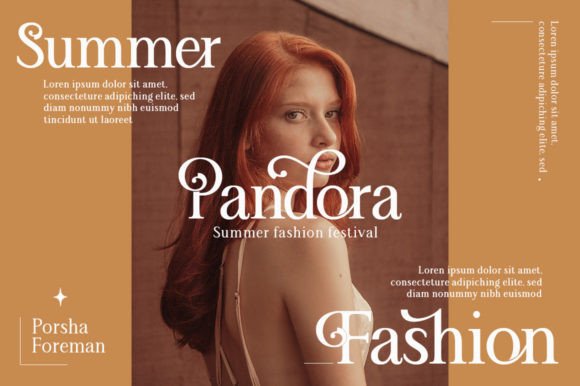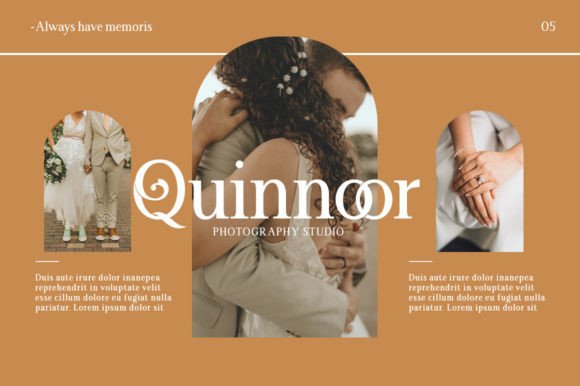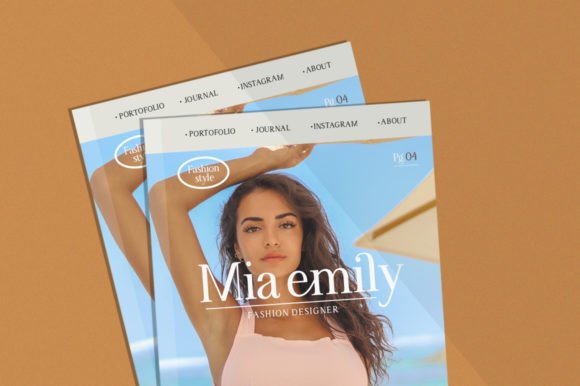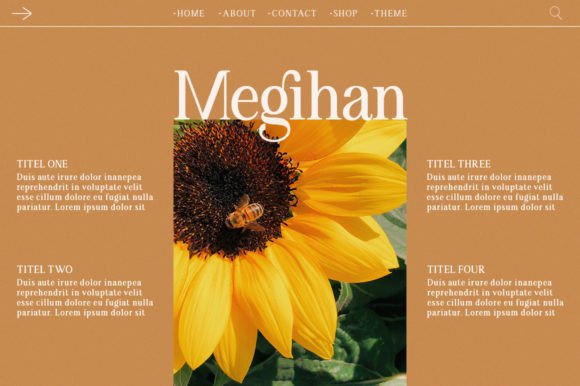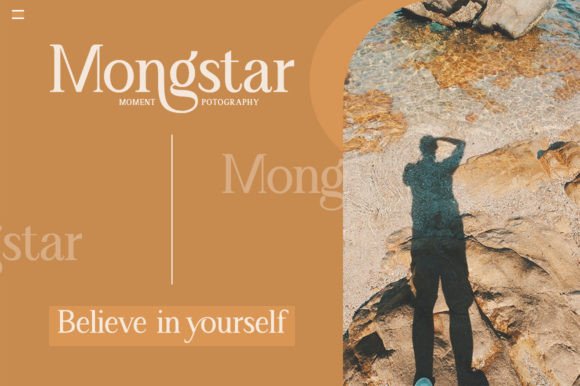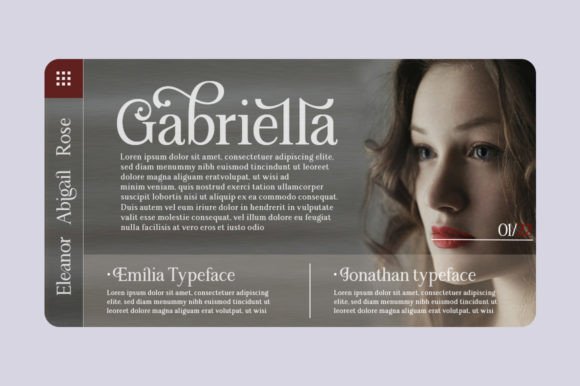
Introduction to Angilena Font
Have you ever stared at a blank page, waiting for the perfect font to strike inspiration? It’s that moment of creative blockage when the right design resource can make all the difference. For designers seeking a unique twist to elevate their work, the Angilena Font is a game-changer. This elegant serif font seamlessly connects letters with ligatures, creating a sophisticated and eye-catching visual effect.
Whether you’re crafting a word-mark logo, monogram, or pull quote, the Angilena Font adds a touch of sophistication to any creative project. With its high-quality design and PUA encoding, you can access all the glyphs and swashes with ease, making it an invaluable resource for designers. Plus, with its transparent background, you can seamlessly integrate it into your designs without any distractions.
Key Features of Angilena Font
- High-quality design resource suitable for creative projects, including digital art and graphic design.
- Designed with a unique, elegant aesthetic, making it perfect for projects requiring a touch of sophistication.
Honest Review: Angilena Font
Here are some things that work well with the Angilena Font:
- ✨ High-quality glyphs that render well on various backgrounds.
- ✨ A transparent background option that allows for seamless integration into any design.
- ✨ The font’s unique aesthetic makes it perfect for creative projects that require a touch of elegance.
- ⚠️ Limited font weights and styles might not be suitable for all design applications.
- ⚠️ Some users might find the font’s style too ornate or overbearing for certain projects.
Overall, the Angilena Font is a solid addition to any designer’s toolkit. While it may have some limitations, its high-quality design and unique aesthetic make it a valuable resource for creative projects.
The Angilena Font is commonly used in creative projects such as graphic design, logo creation, and typography. It is also used in digital products such as mobile apps, websites, and e-books.